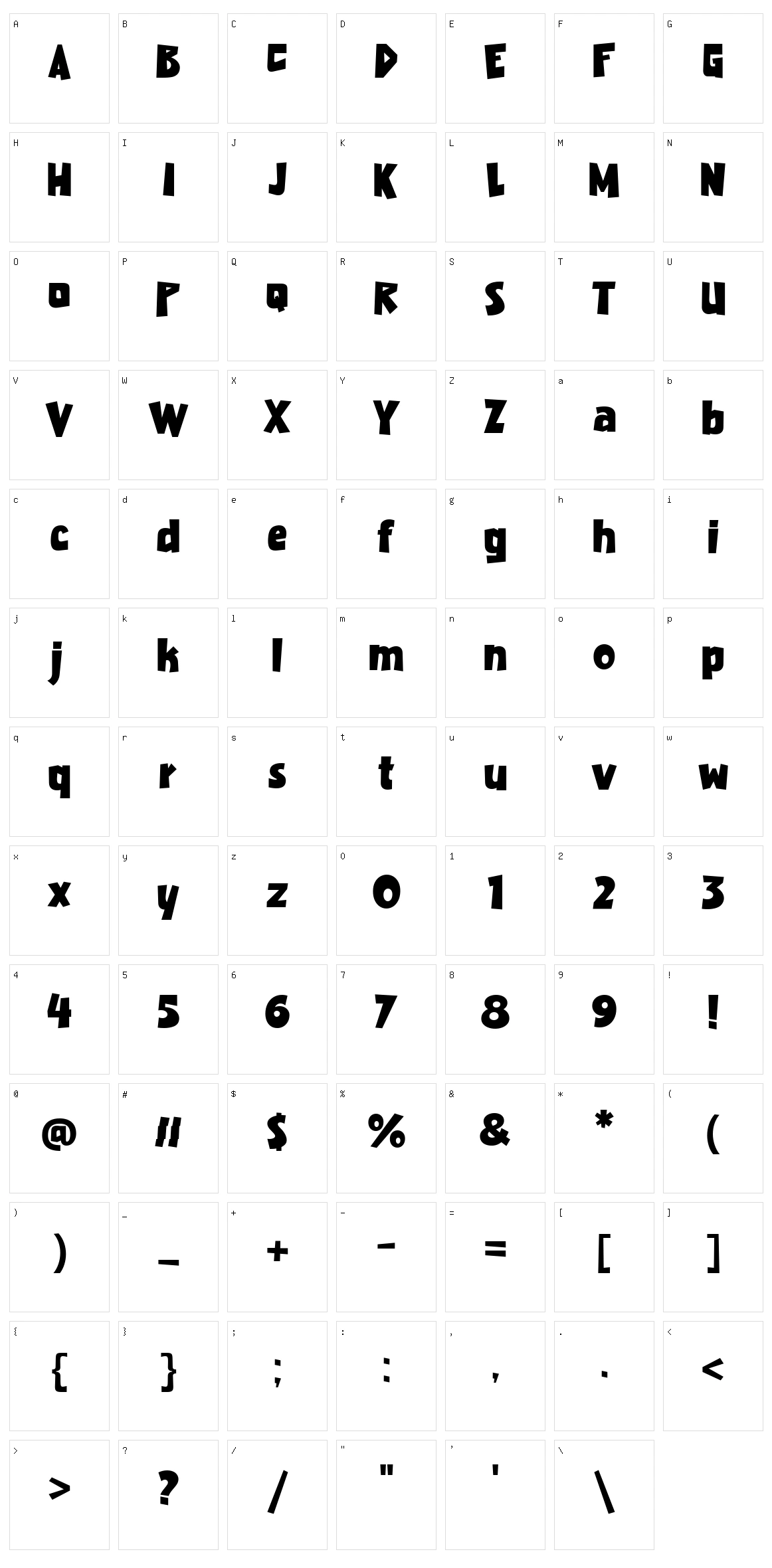
The free font Chomiqy is carefully designed by Alit Design, showcasing a thoughtful balance of creativity and usability and falls under the Cartoon font style. When you download the ZIP file, it contains only 250.52 KB of font files, making it lightweight and quick to download. Please review the license details below to understand permitted usage and distribution rights. If license information is not available, we recommend using this font for personal projects only or contacting the author directly for commercial usage permissions.